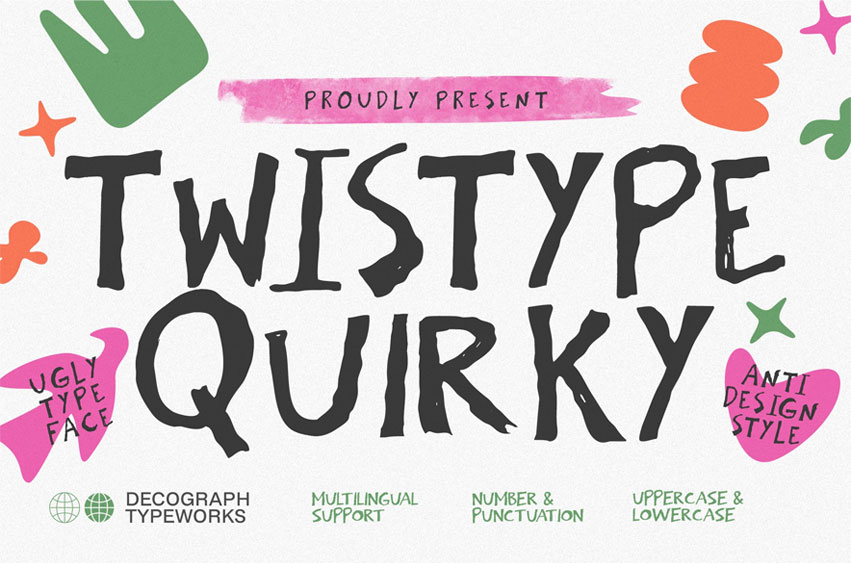
Twistype Quirky Font
Twistype Quirky Font Handwritten Display Font is a playful typeface built from irregular strokes and imperfect letterforms. Its uneven shapes and spontaneous style create a raw, expressive character that feels artistic and full of personality. The natural imperfections give the font a charming handmade look while keeping it bold and readable for display use.
Perfect for designers who want something unconventional and full of character, this font works great in creative and experimental layouts. From posters and social media graphics to branding and playful packaging, Twistype brings a fun anti-design aesthetic that stands out instantly.
Style: Quirky Handwritten Irregular Display Anti Design Style
Font Features: Uppercase Letters Lowercase Letters Numbers And Punctuation Multilingual Support Irregular Handwritten Forms Unique Display Character